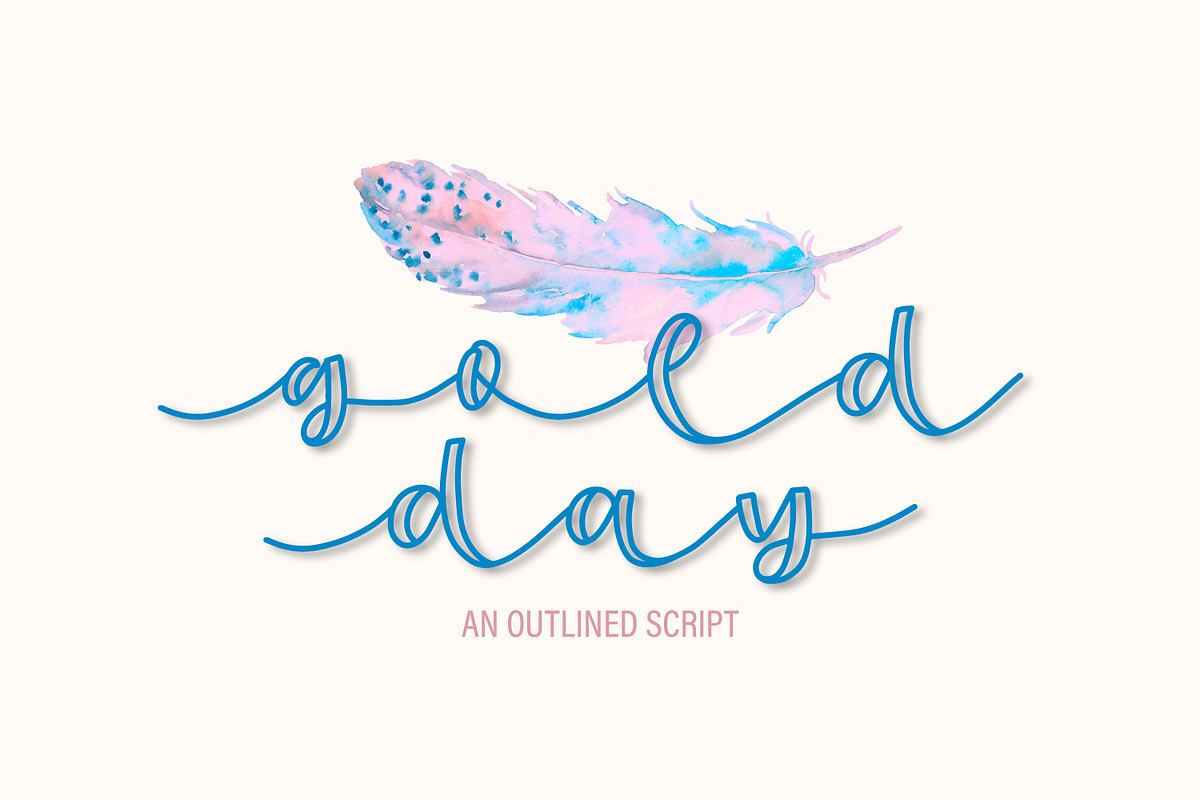
Gold Day – An Outlined Script Font Free Download
Gold Day – An Outlined Script Font Free Download is a unique and eye-catching typeface that combines the elegance of cursive handwriting with the bold impact of outlined lettering. Perfect for branding, boutique packaging, social media quotes, greeting cards, and standout logo designs, this font brings a stylish twist to traditional script.
Its outlined style gives it a modern, trendy edge—making it ideal for creative projects that want to feel both playful and polished. Whether you’re designing for fashion, lifestyle, or events, Gold Day adds flair and distinction to your typography.
Designers love Gold Day for its combination of sophistication and originality across both digital and print platforms. Want to make your script typography shine? Download Gold Day – An Outlined Script Font Free Download and give your next project a golden touch.